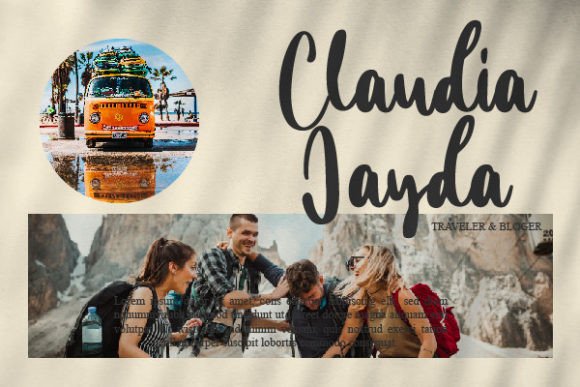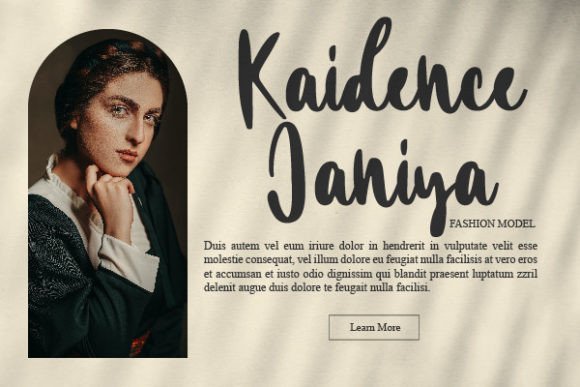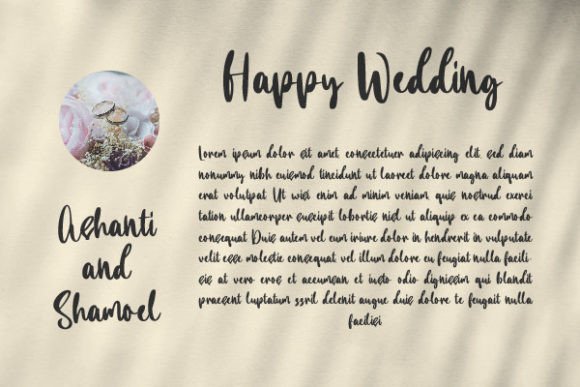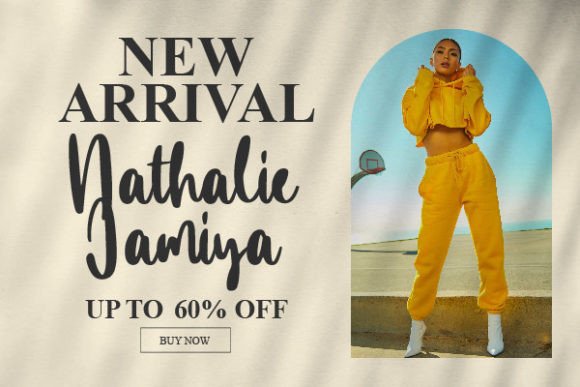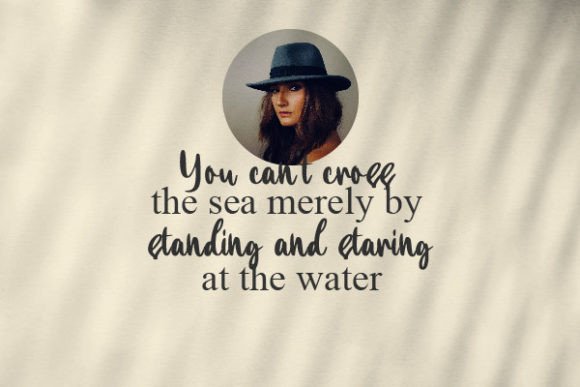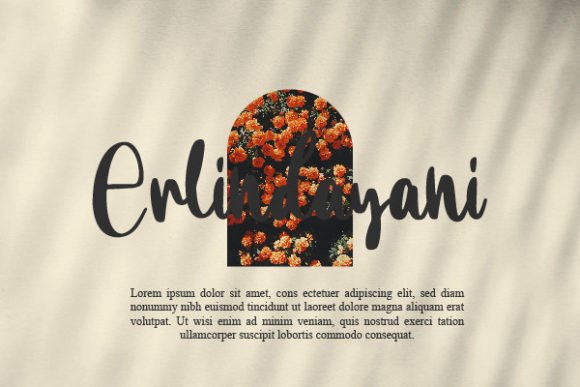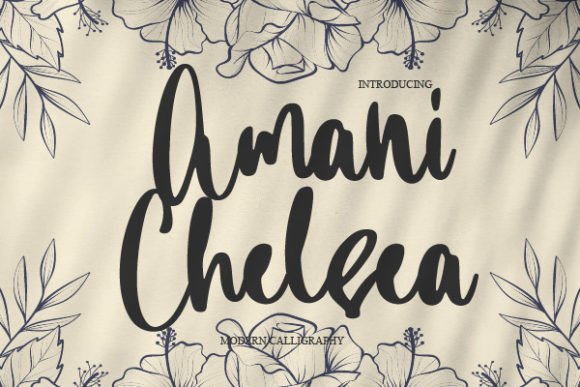
The Designer’s Delight: Amani Chelsea Font
I’ll never forget the time I was working on a project for a client’s wedding invitation suite. I had the design concept nailed, but something was missing – the perfect font. I scoured the internet, tried out countless fonts, but none seemed to capture the warm and cozy feel I was going for. That’s when I stumbled upon Amani Chelsea Font, and it was love at first sight! 💕
With its beautiful, handwritten curves and natural flow, Amani Chelsea Font added a personal touch to the design that made it truly special. If you’re a designer, crafter, or creative hobbyist looking for a font that can bring a sense of warmth and personality to your projects, then you’re in luck! In this article, we’ll dive into the world of Amani Chelsea Font and explore its features, uses, and alternatives.
- ✨ Beautiful, handwritten curves that give off a warm and cozy vibe
- ✅ Natural flow that’s perfect for a variety of projects, from wedding invitations to blog posts
- 💫 Charm and appeal that make it ideal for adding a personal touch to any design
- 🎨 Highly versatile and can be used for both digital and print projects
While Amani Chelsea Font is an amazing font, it’s not perfect. Here are a few things to keep in mind:
- 🤔 May not be the best choice for very large or very small text sizes, as some details may get lost
- ⚠️ Limited availability of certain characters or glyphs, which may limit its use in certain contexts
Amani Chelsea Font comes with a range of OpenType features and glyphs that can enhance your design. Here are a few tips on how to access them:
- 🔍 Experiment with different stylistic alternates and swashes to add visual interest to your text
Amani Chelsea Font was designed with the intention of creating a font that captures the warmth and personality of handwritten text. The designer, who wishes to remain anonymous, drew inspiration from classic handwritten fonts and infused them with a modern twist. The result is a font that’s both elegant and approachable.
Q: What is Amani Chelsea Font?
A: Amani Chelsea Font is a handwritten font with a beautiful and warm personality, perfect for adding a personal touch to any design.